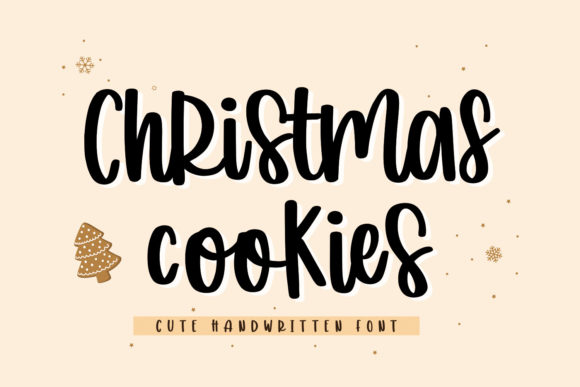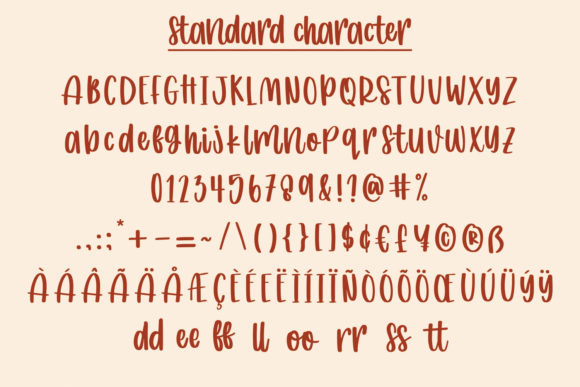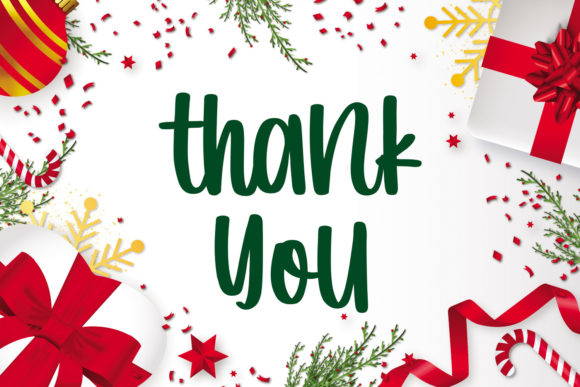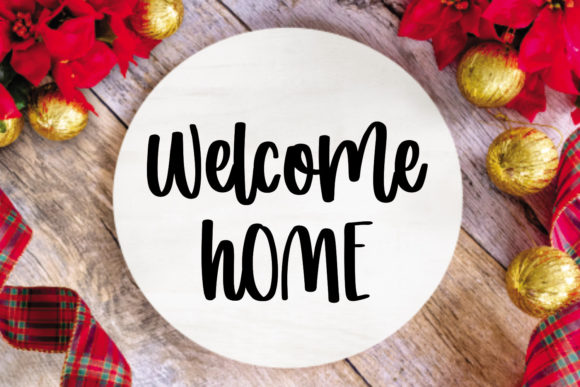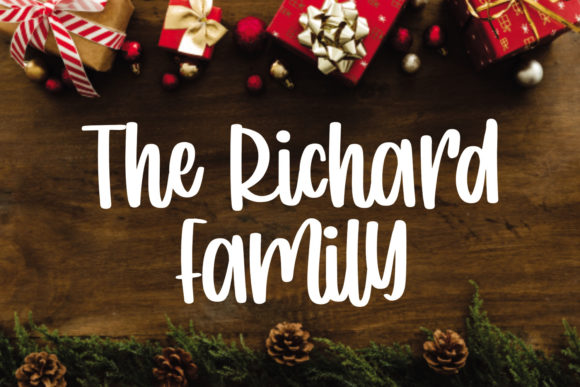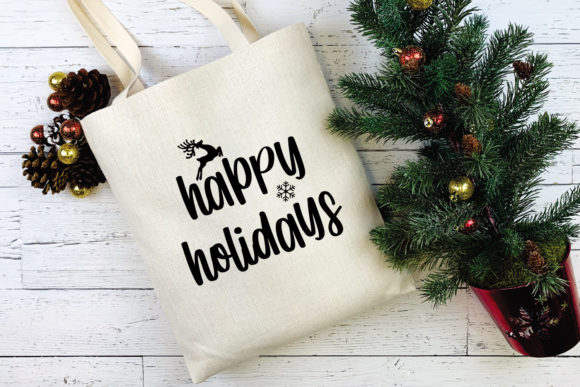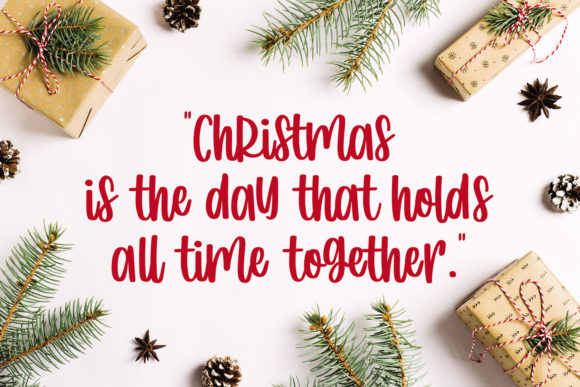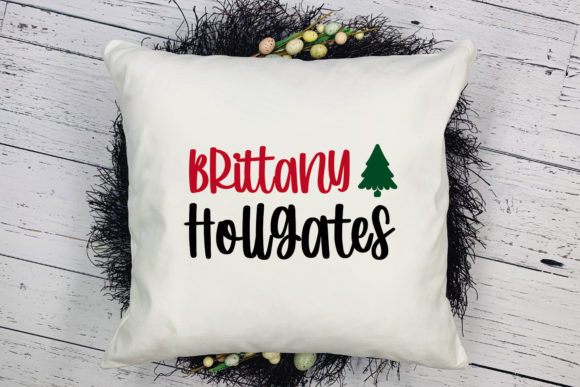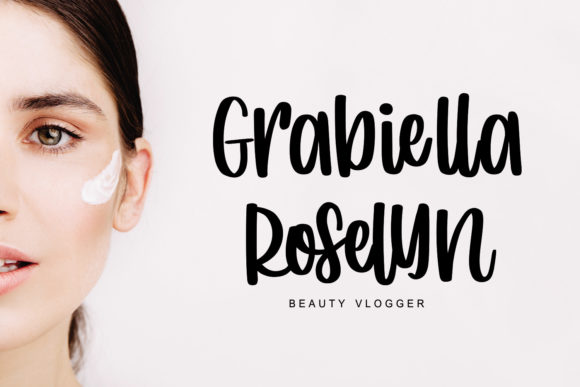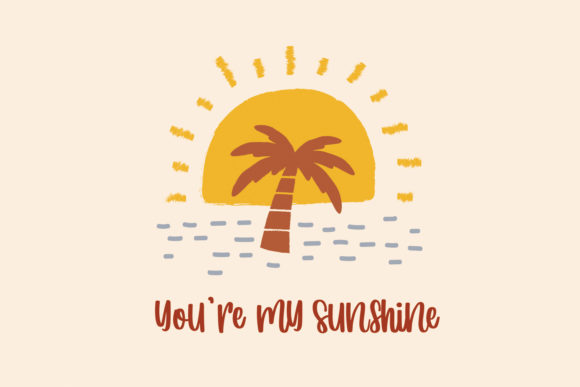
Christmas Cookies Font
About Christmas Cookies Font
Christmas Cookies is a cute and beautiful handwritten font. This unique and joyful font will effortlessly turn any design project into a stand out!